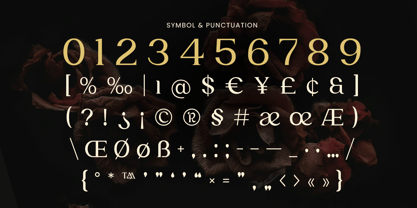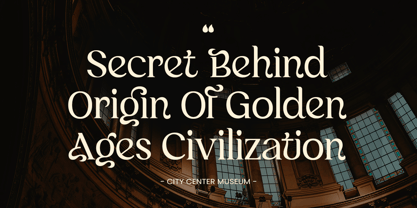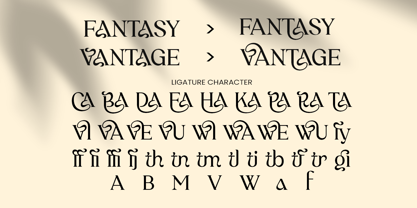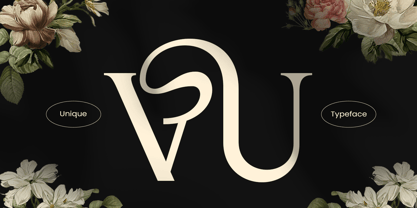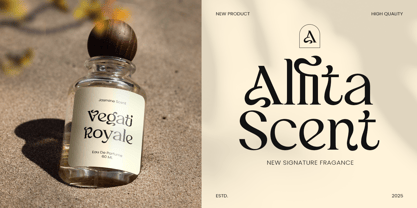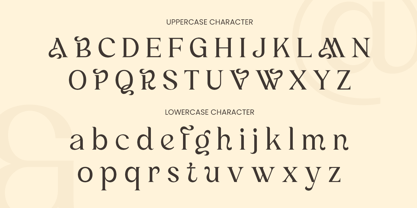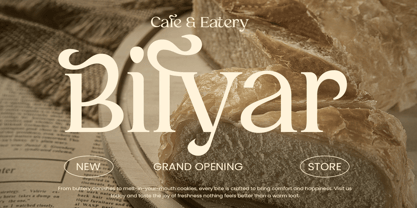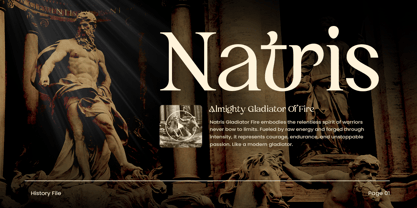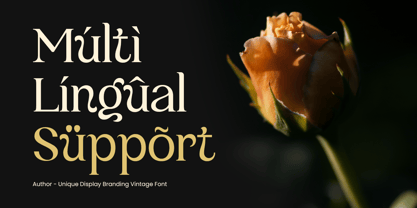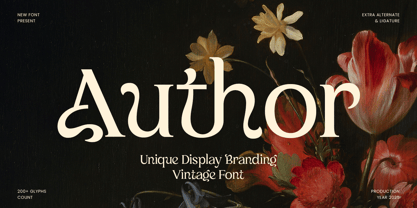
Author
The Author Font Family was designed by Zamroni Hamzah and published by Sensatype Studio. Author contains 1 styles. More about this family
Author is a unique display branding vintage font built to deliver character, nostalgia, and standout presence. With its bold display structure and vintage-inspired charm, Author brings a timeless personality that feels confident, memorable, and full of story—perfect for designs that need a classic yet distinctive voice.
Ideal for logos, brand identity, posters, signage, packaging, labels, and editorial headlines, Author helps you create strong visuals with a heritage tone. Whether you’re building a retro-inspired brand, a craft product label, or a classic event poster, this typeface adds an authentic vintage vibe while staying clean and impactful.
From coffee shops and barbershops to apparel branding and product packaging, Author is made for designers who want bold display typography that feels classic, premium, and ready to lead the brand narrative.
Author – Vintage Display Branding Features
• Unique vintage display letterforms with bold personality
• Perfect for branding, logos, labels, packaging, and signage
• Strong headline impact for posters, editorial, and advertising
• Great for retro themes, heritage brands, and classic product design
• Includes uppercase, lowercase, numerals, and punctuation
• Works beautifully for both print and digital applications
• OpenType features for flexible typography and layout control
Make your branding feel timeless and unforgettable with Author — a vintage display font built to lead the spotlight. 📚✨